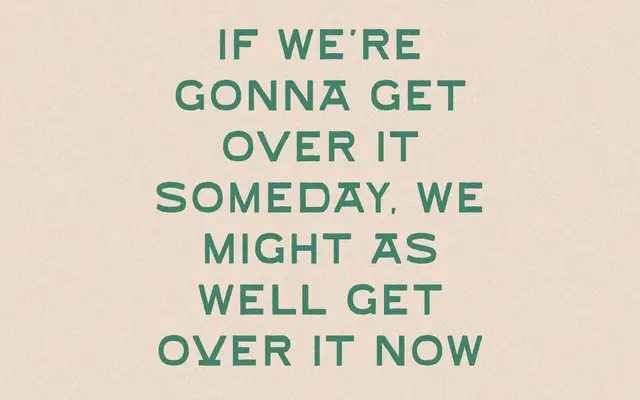
Danny Lasso
Danny Lasso specimen from Taylor Penton
A single-weight display face spun off from Johnny Jukebox, distinguished by unique crossbar styling and regular alternates for added versatility.
Built on the structural bones of Johnny Jukebox, Danny Lasso takes its own direction through distinctive crossbar letterforms and a set of alternates that add variety without losing cohesion. The 150-glyph set covers basic Latin with a limited range of accented characters, making it best suited to logotypes, packaging and short display copy. A flat $25 commercial licence covers most use cases without seat or traffic restrictions.
A display typeface with handmade character and distinctive crossbar styling, positioned as an expressive spin-off with alternates; fits display or script-adjacent display category given its decorative, personality-driven nature.